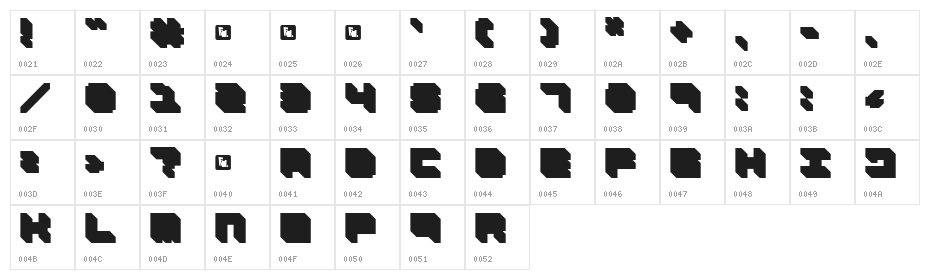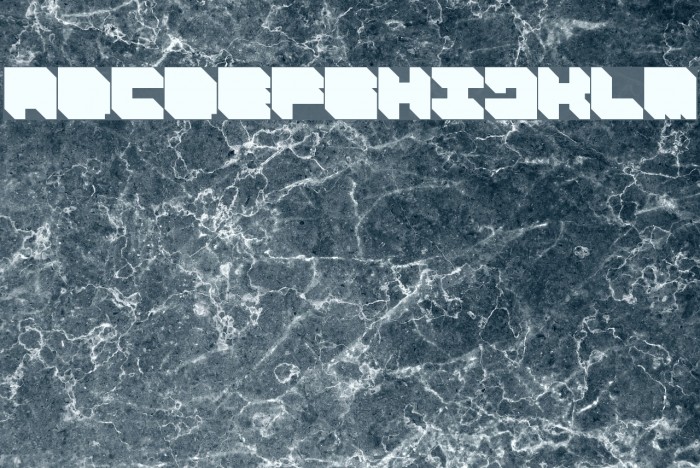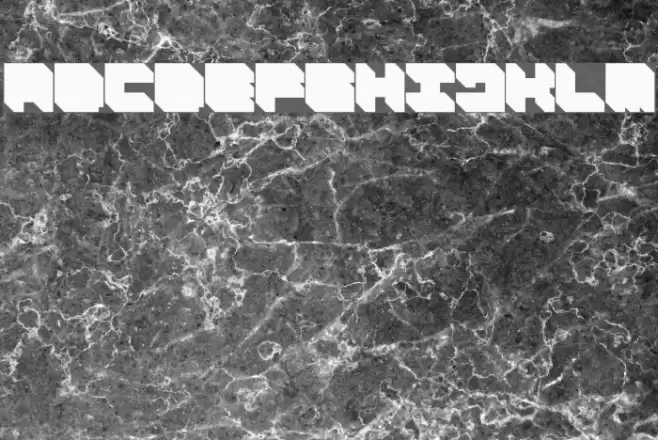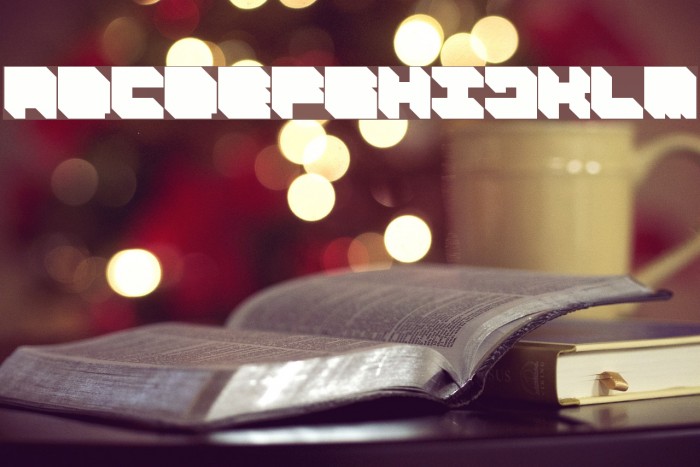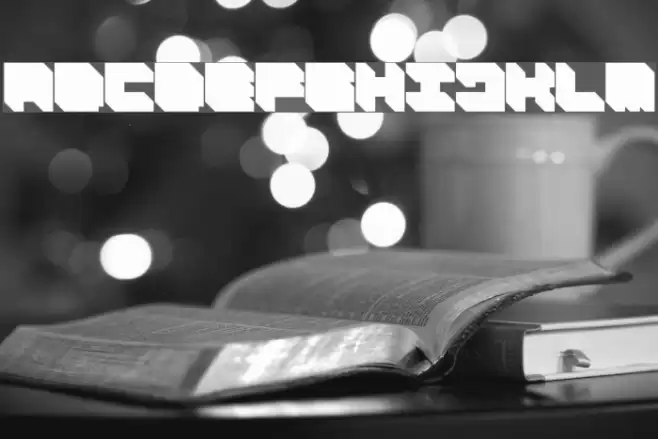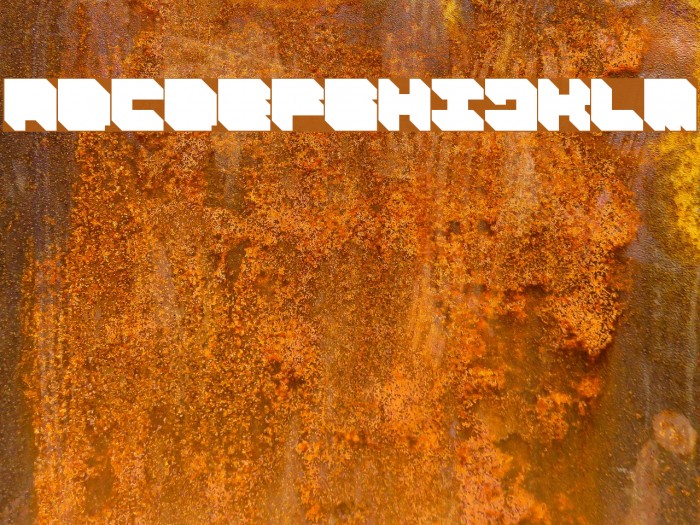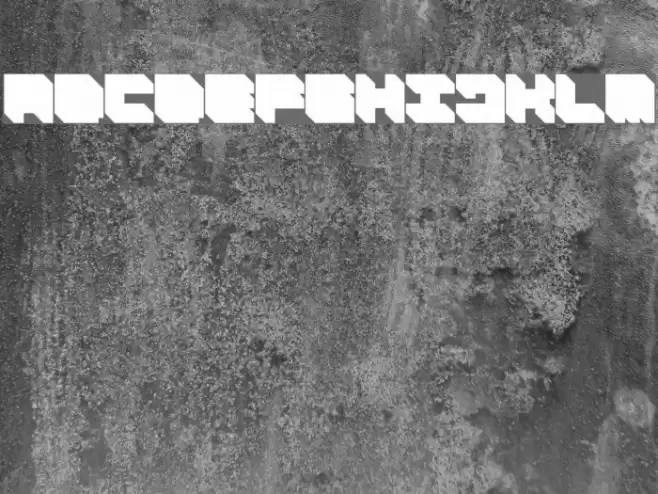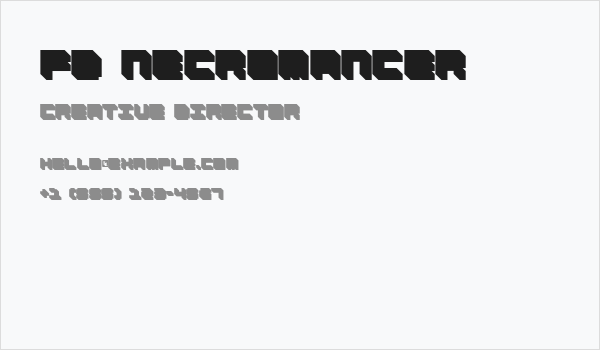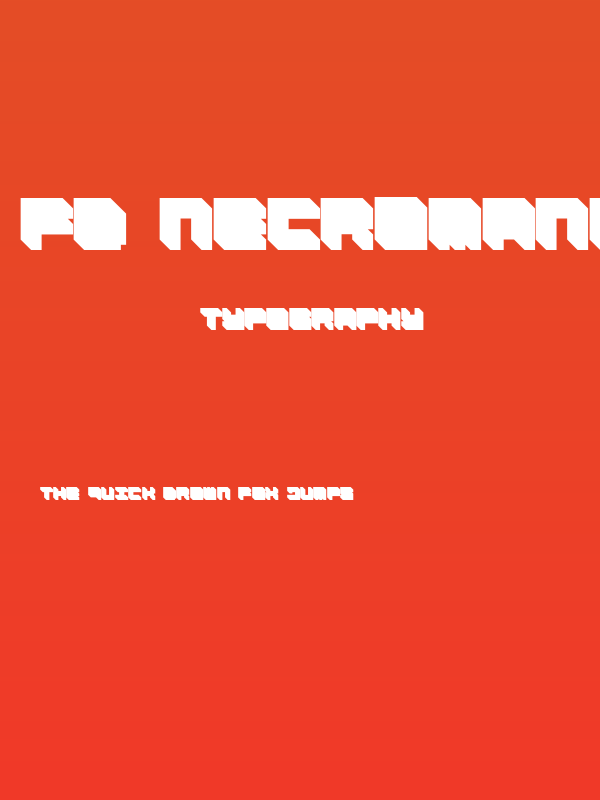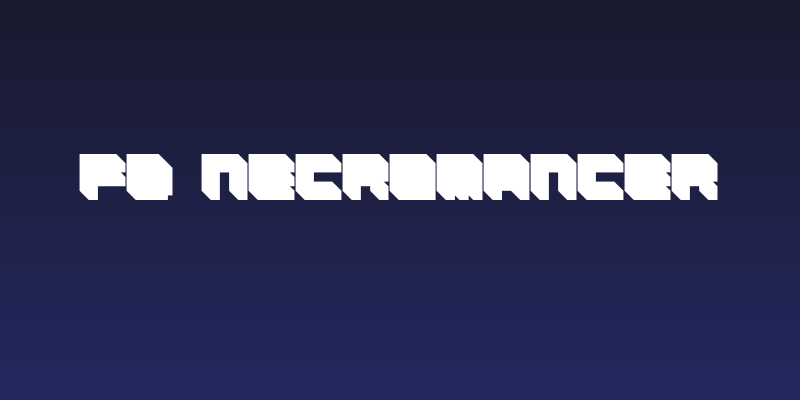
FD Necromancer Font
FD Necromancer Description
This font features a bold, geometric design with sharp angles and a blocky appearance. The characters are heavily stylized, creating a futuristic and edgy look. The uppercase and lowercase letters maintain a consistent width, contributing to a uniform and cohesive aesthetic. The numbers and special characters follow the same design principles, ensuring a seamless integration across all text elements. The font's unique style makes it stand out, offering a distinctive visual impact that is both modern and assertive.
| Overall Style | Modern, Futuristic |
| Proposed Projects | Ideal for video game titles, sci-fi movie posters, tech branding, and edgy graphic designs. |